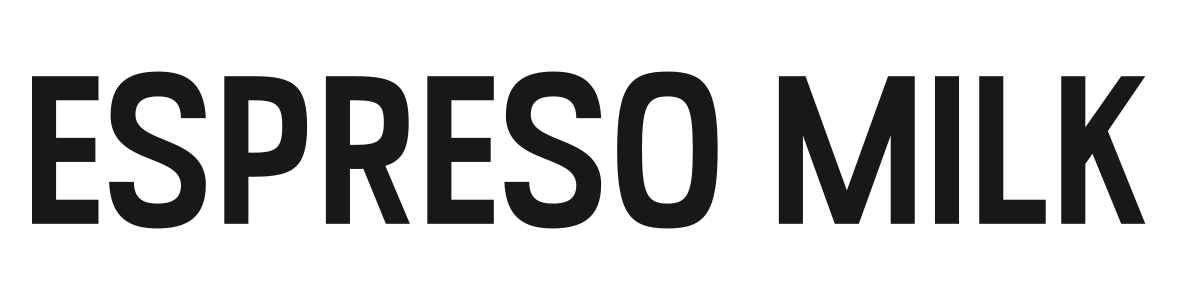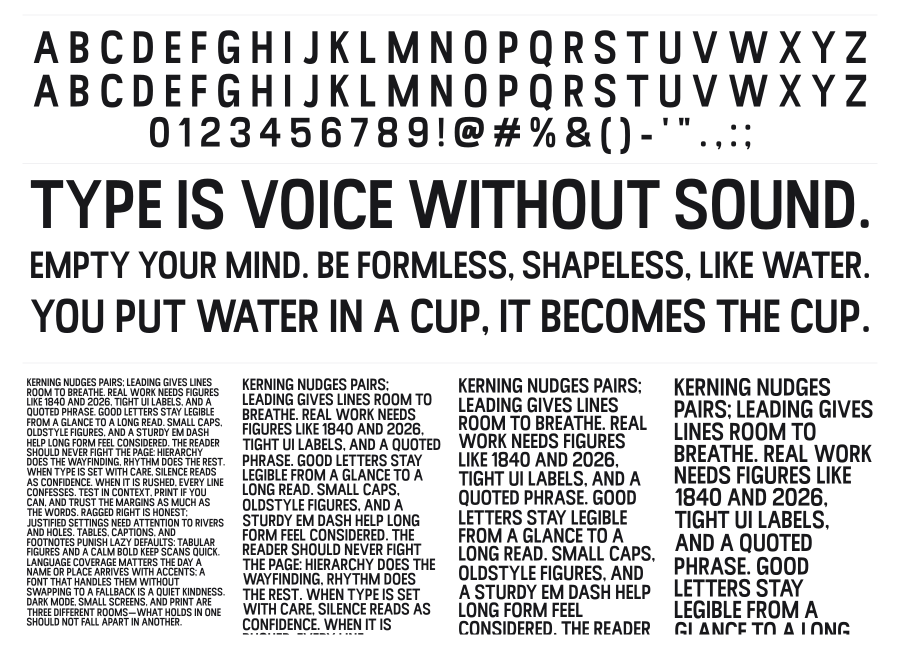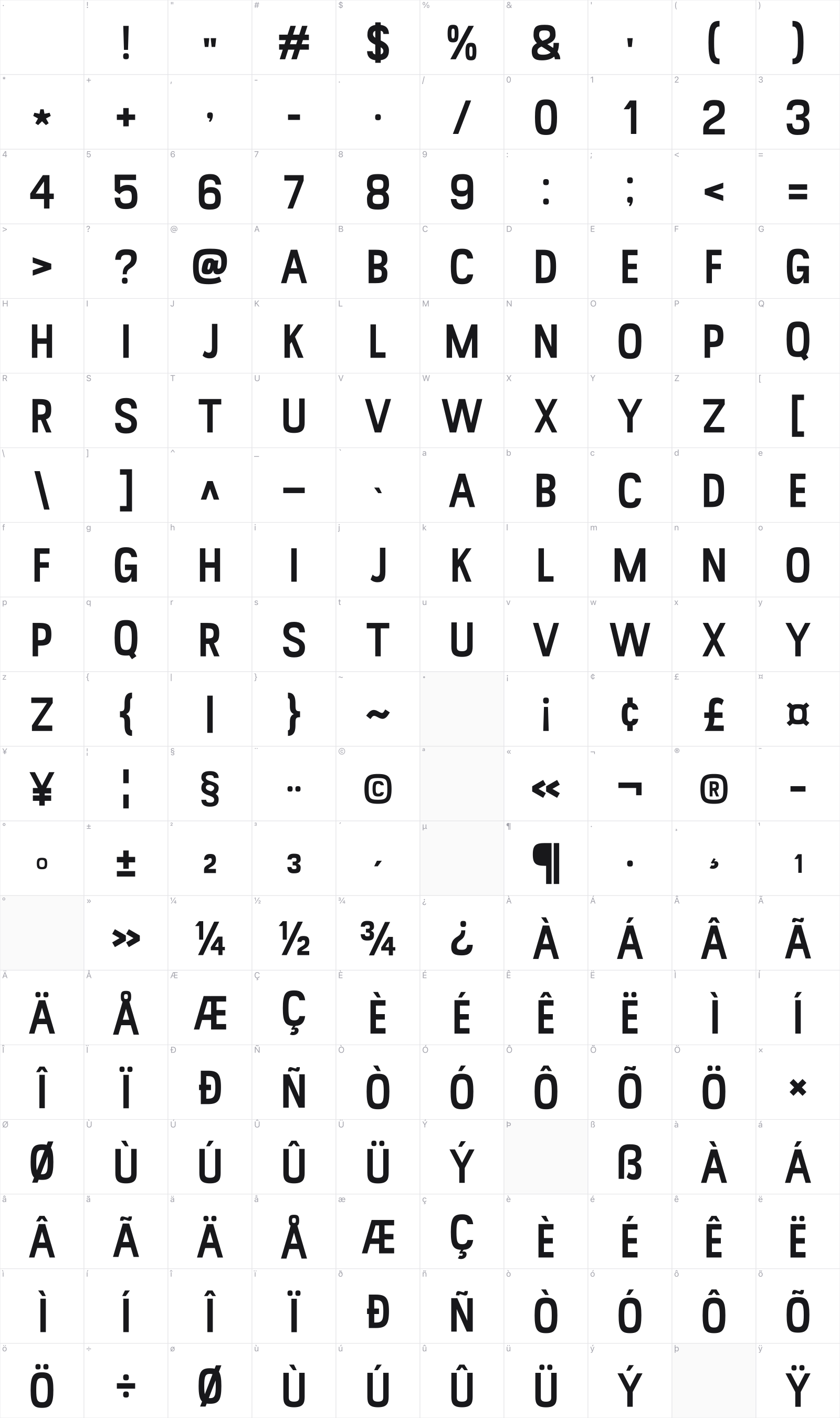
Espreso Milk
Espreso Milk is a condensed bold grotesque sans with dense, heavy proportions and a clean monoweight stroke. It draws from mid-century grotesque tradition, delivering straightforward typographic weight without decoration. Strong at large sizes for headlines, posters, and identity work that needs to command attention.